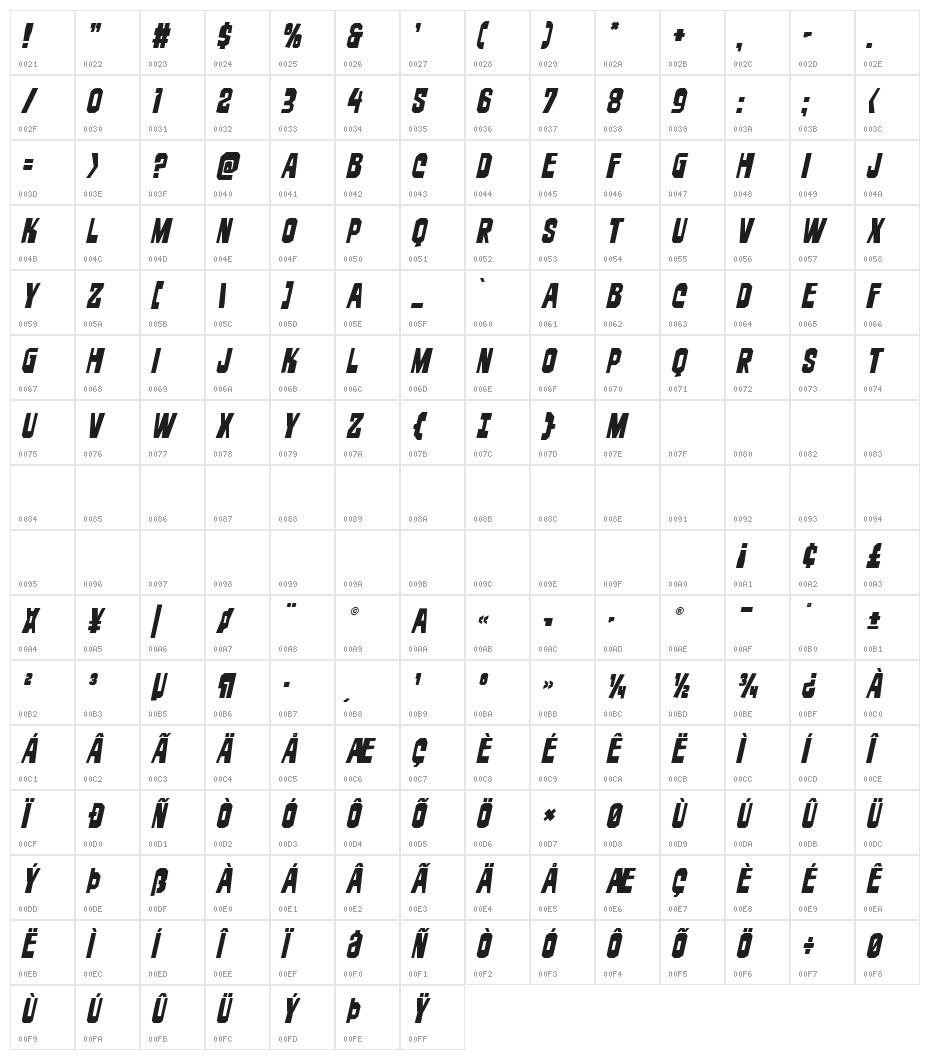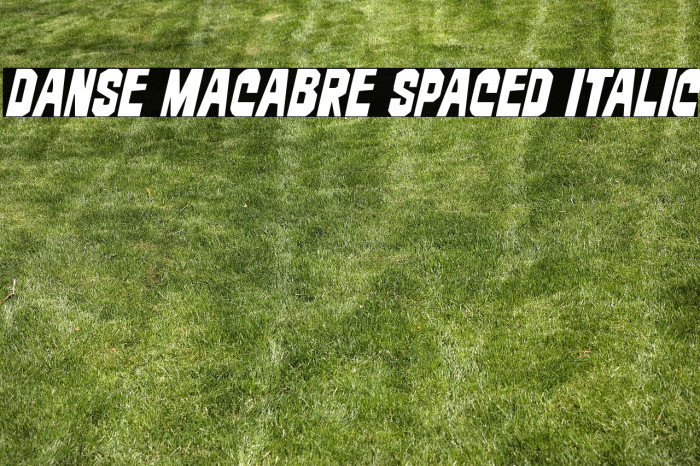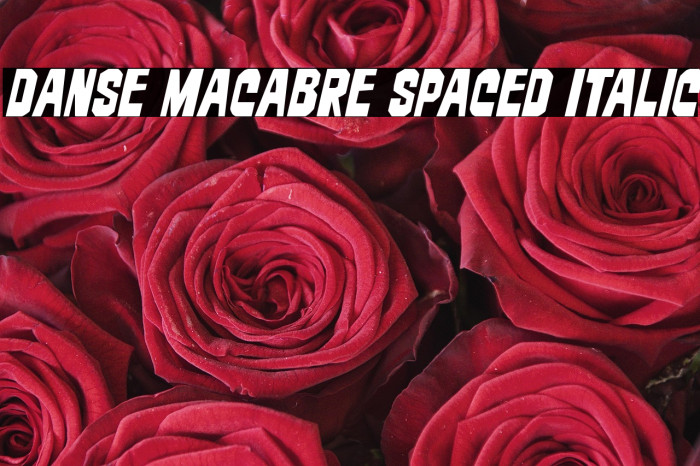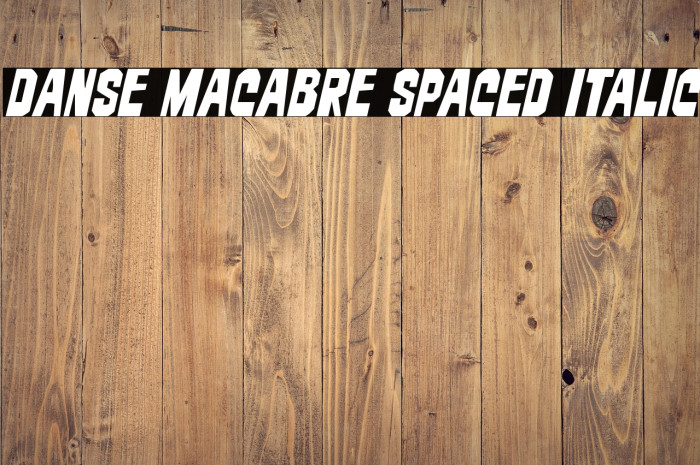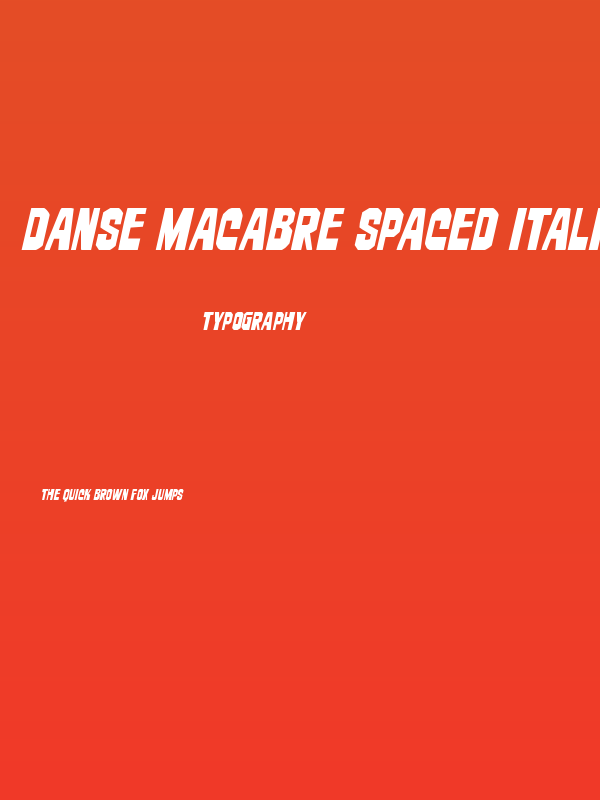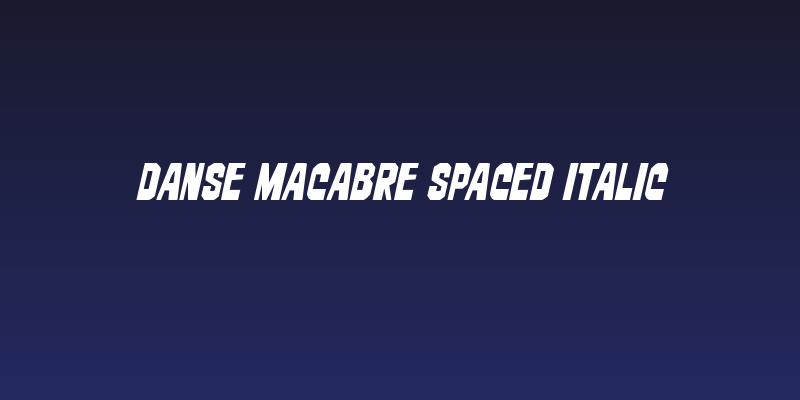
Danse Macabre Spaced Italic Font
Danse Macabre Spaced Italic Description
This font features a bold and dynamic style with a distinct italic slant, giving it a sense of movement and energy. The characters are designed with sharp angles and a slightly condensed form, which adds to its aggressive and modern appearance. The uppercase letters are particularly striking, with their strong geometric shapes and consistent stroke widths. The numbers and special characters maintain the same boldness and angularity, ensuring a cohesive look across all glyphs. This font's unique style makes it stand out, making it ideal for projects that require a strong visual impact.